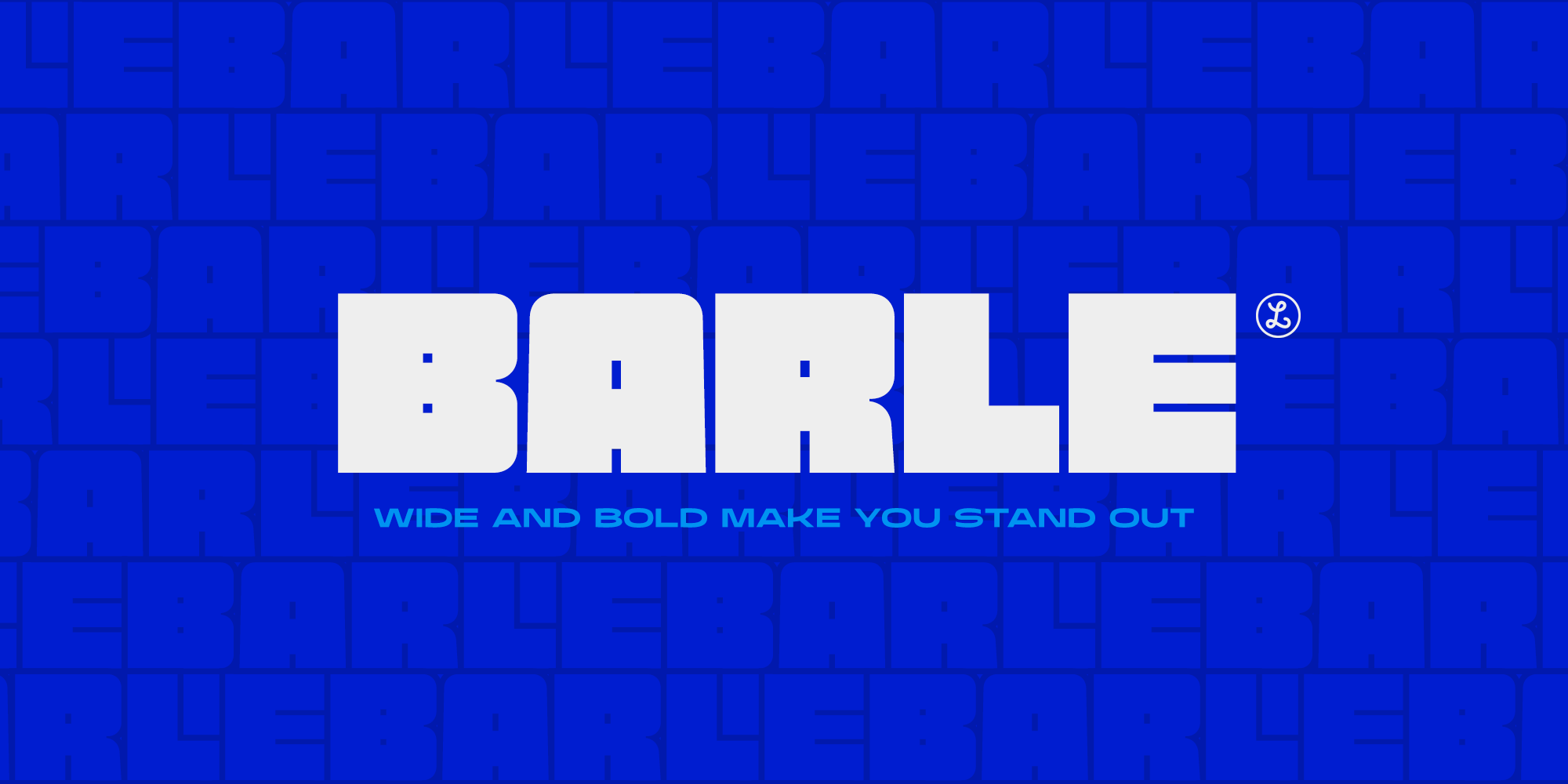
Barle Font Free Download – Minimalist Style with Maximum Impact
Looking for a clean, minimalist font that delivers strong visual presence? Barle Font Free Download is your go-to typeface for sleek, modern designs. With its straightforward lines and balanced spacing, Barle makes your text easy to read while adding a contemporary edge to any project.
Perfect for branding, digital platforms, editorial layouts, and product packaging, Barle strikes a balance between simplicity and sophistication. Whether you’re designing a logo, website headers, or social media graphics, this font ensures your message is clear and stylish.
Barle proves that less is more, bringing elegance through simplicity. Make your designs stand out with a font that’s clean, confident, and ready for any creative challenge.